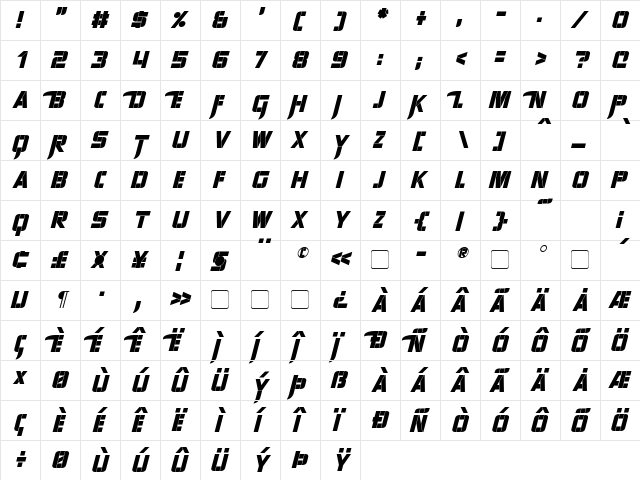
Sharp Avienne Italic
| Foundry | Neale Davidson |
| Designer | Neale Davidson |
Design Context for Sharp Avienne Typeface
Sharp Avienne is a composed and adaptable typeface that performs quietly and consistently across a wide range of design contexts. The slanted form adds forward momentum and visual energy.
Pro Tip: Try Sharp Avienne for annotation and caption copy alongside an upright companion — the contrast in angle creates a dynamic but ordered typographic system.